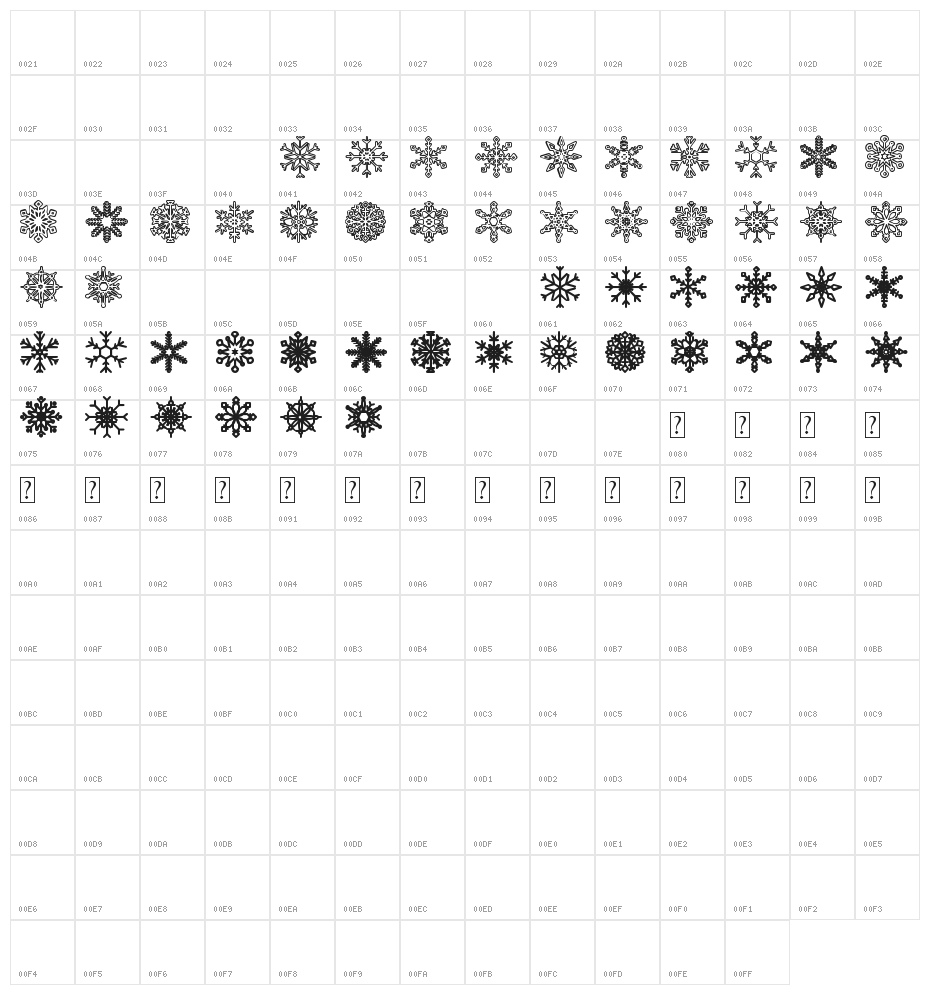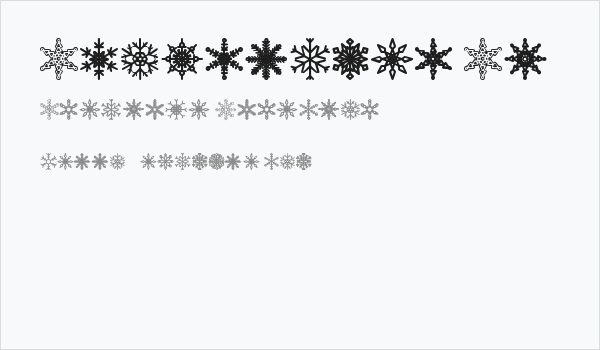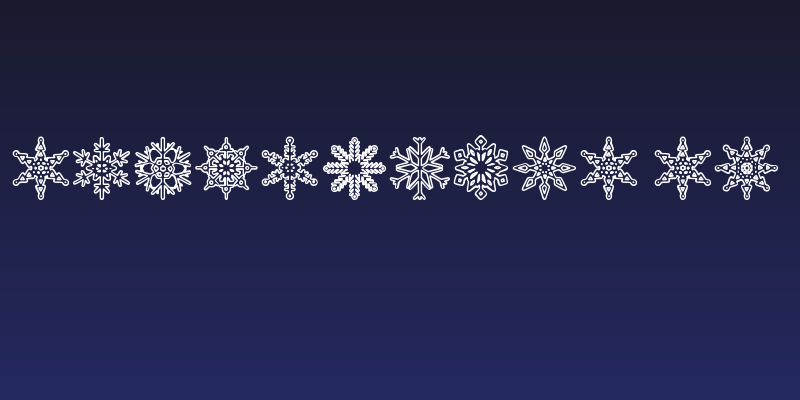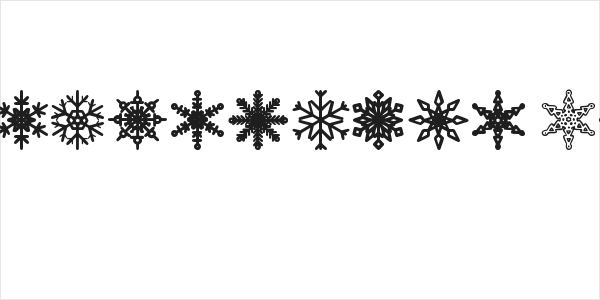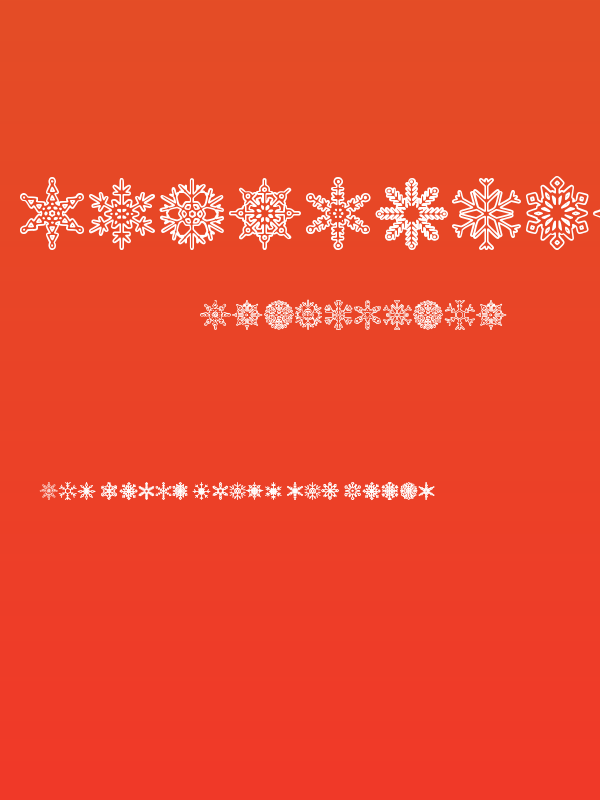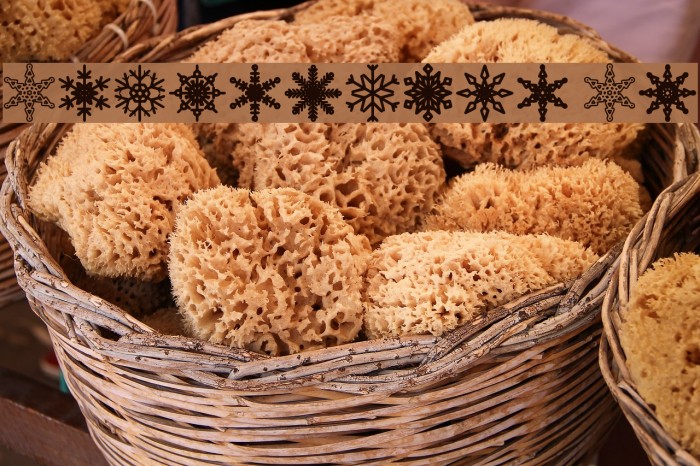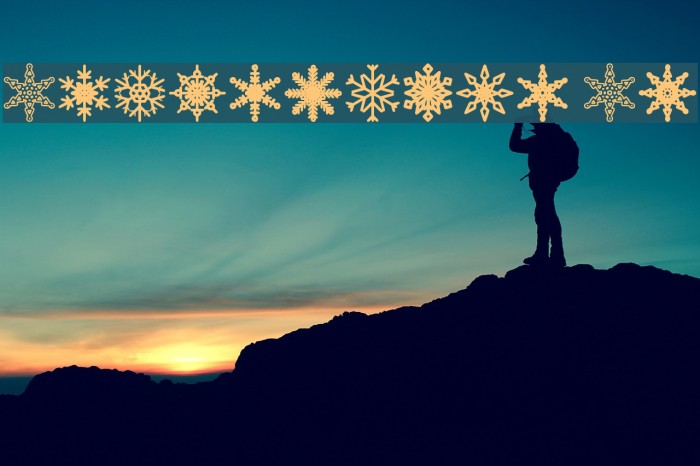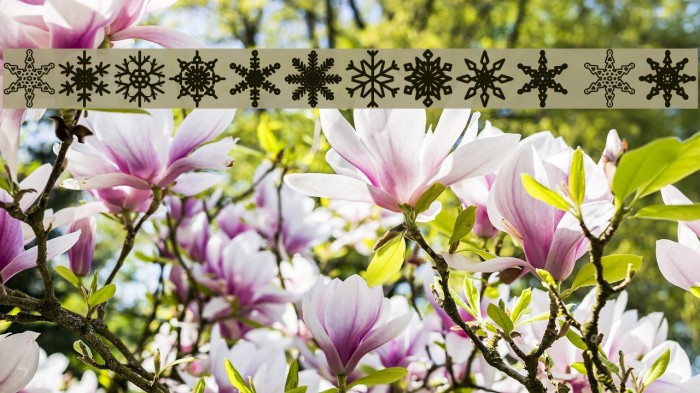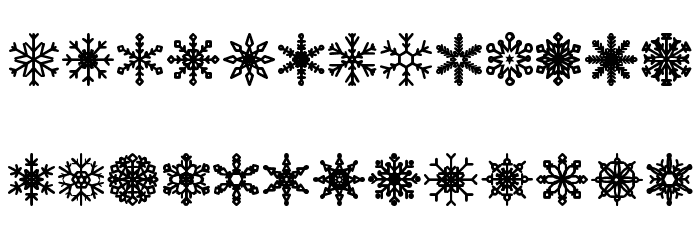
Snowflakes St Font
Snowflakes St Description
A decorative dingbat font featuring a wide variety of intricate snowflake illustrations, each glyph representing a unique snowflake design with detailed line work and symmetrical patterns. The glyphs are highly ornamental and vary in complexity, with both open and filled styles.
| Overall Style | Decorative, Festive, Ornamental |
| Use Case | Icons, Borders, Decorative elements, Themed graphics |
| Proposed Projects | Holiday cards, winter-themed invitations, seasonal decorations, scrapbooking, festive posters, digital stickers. |